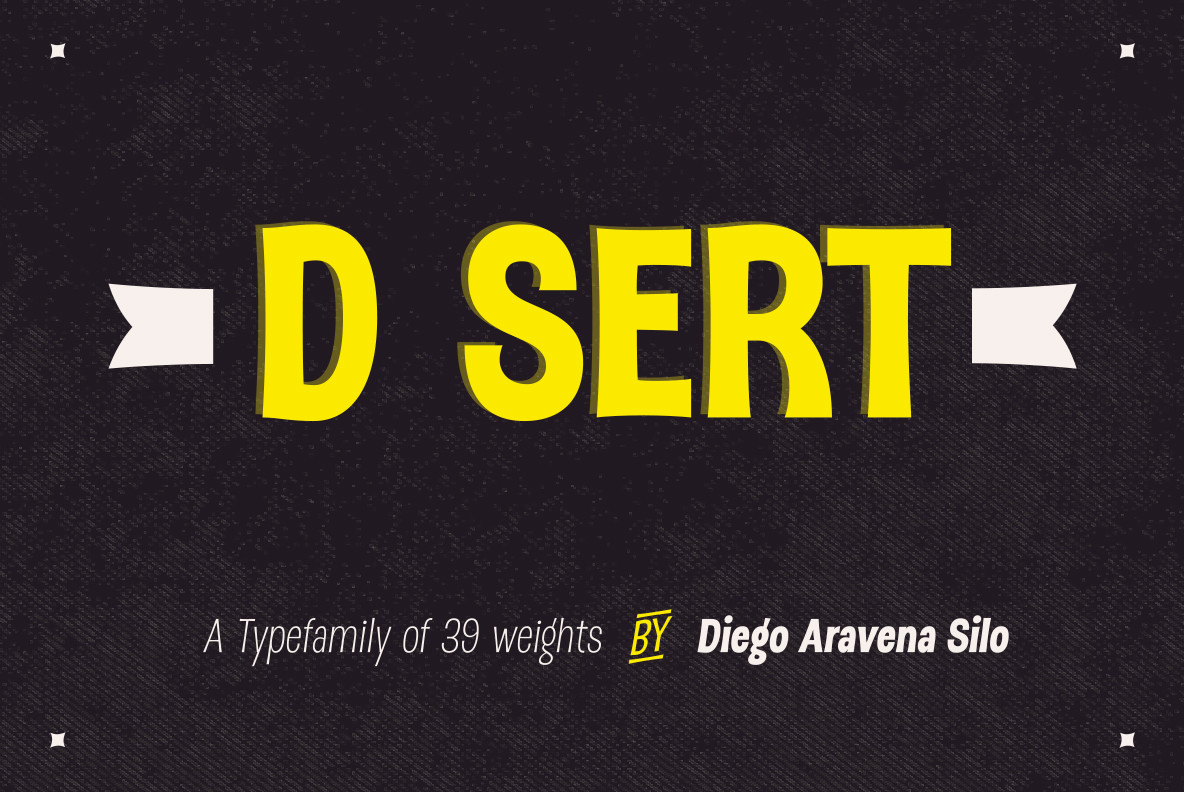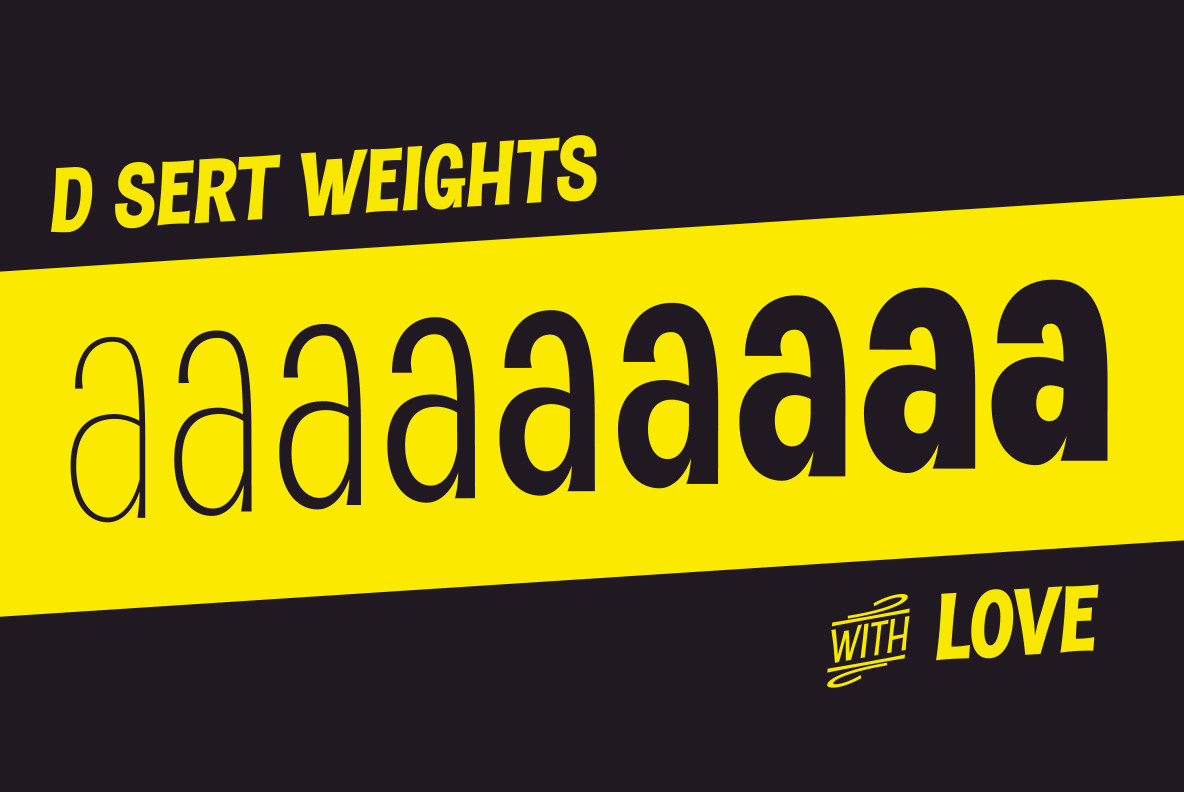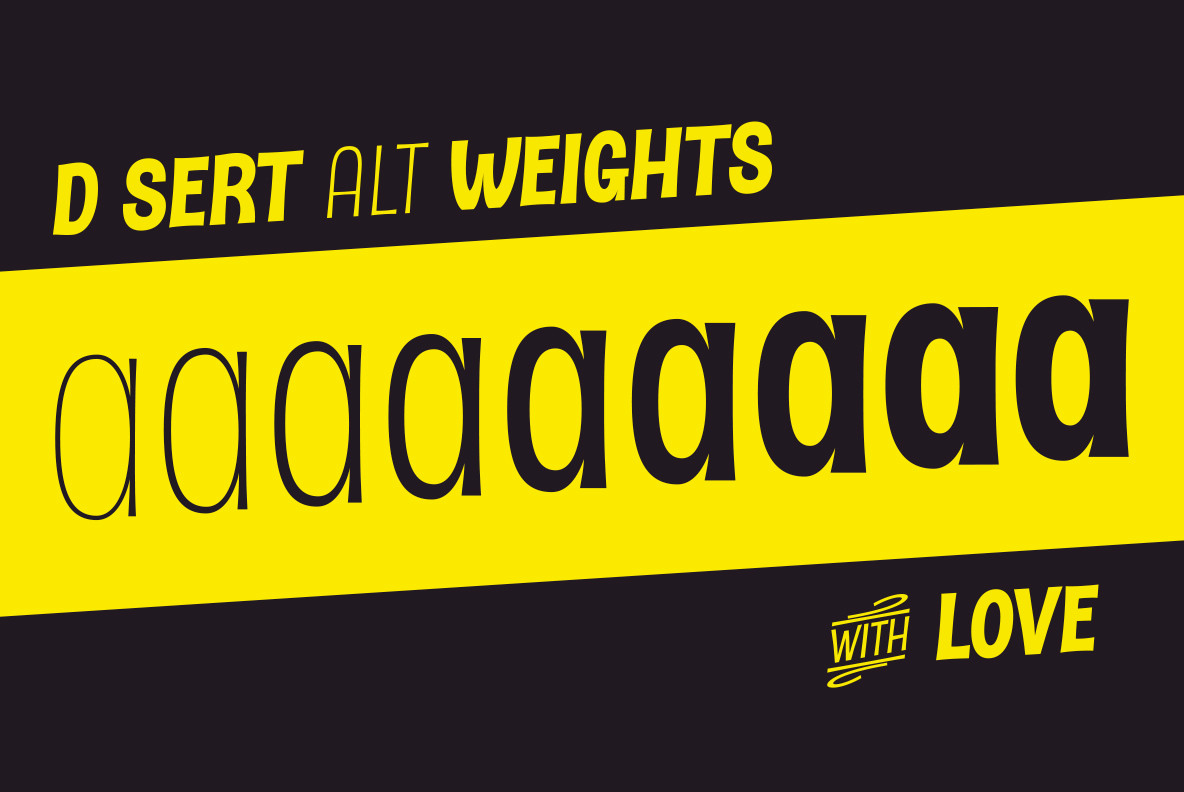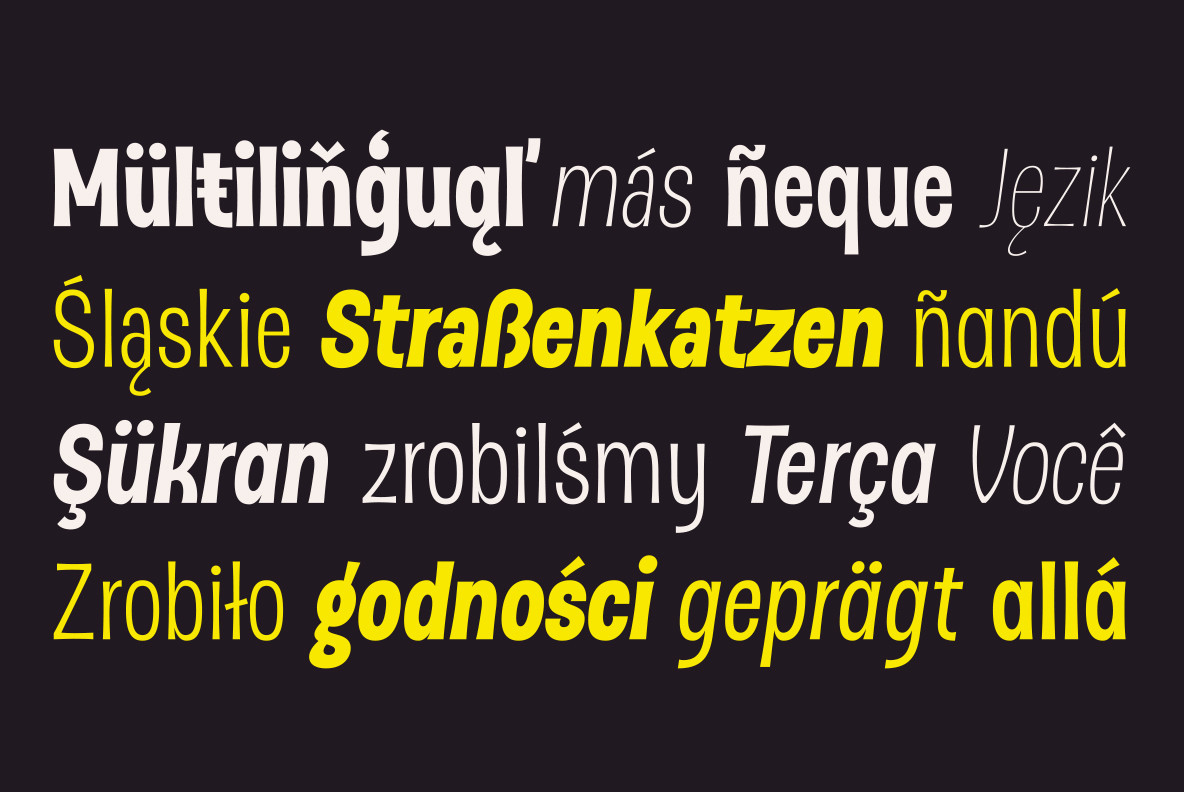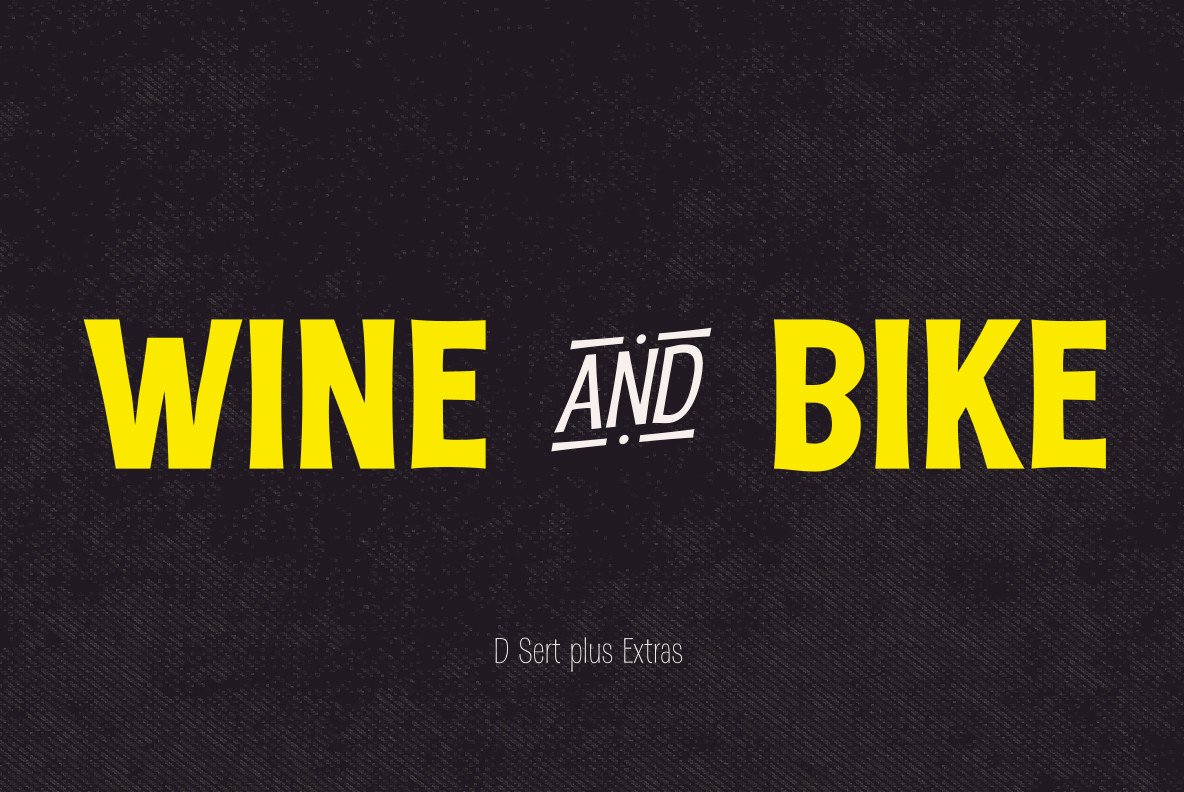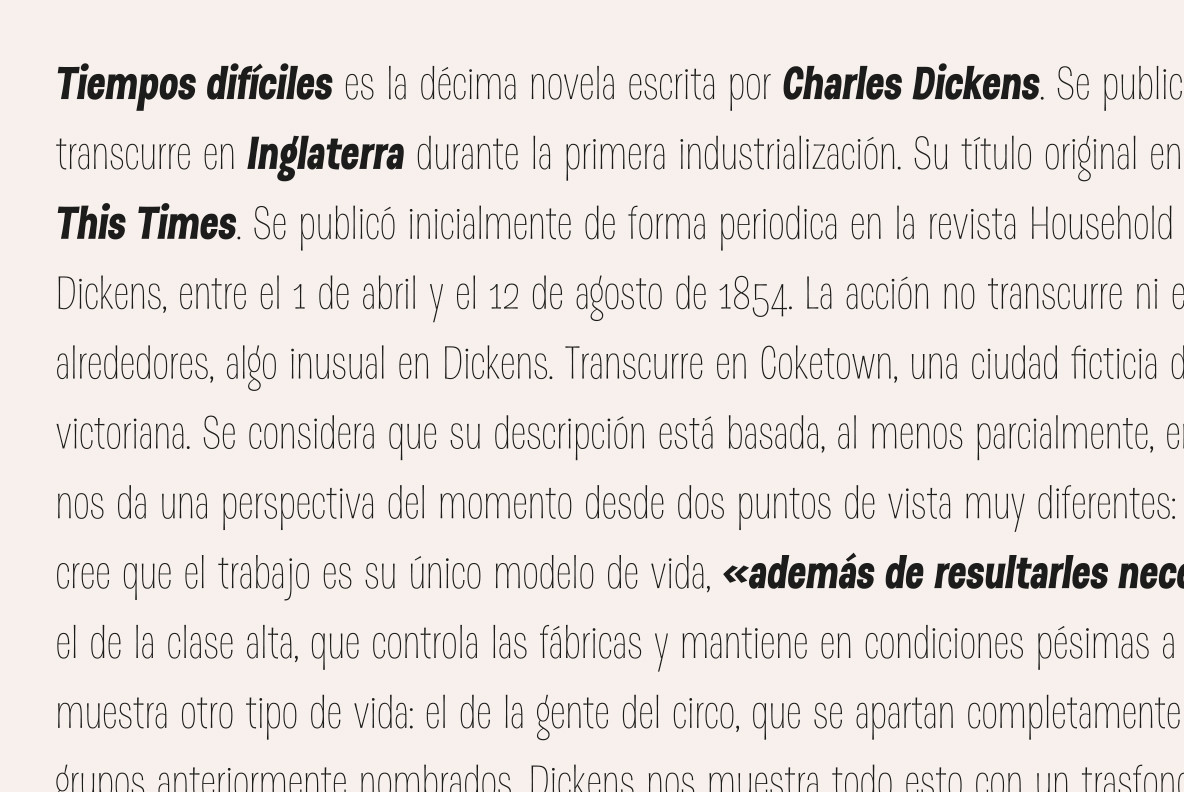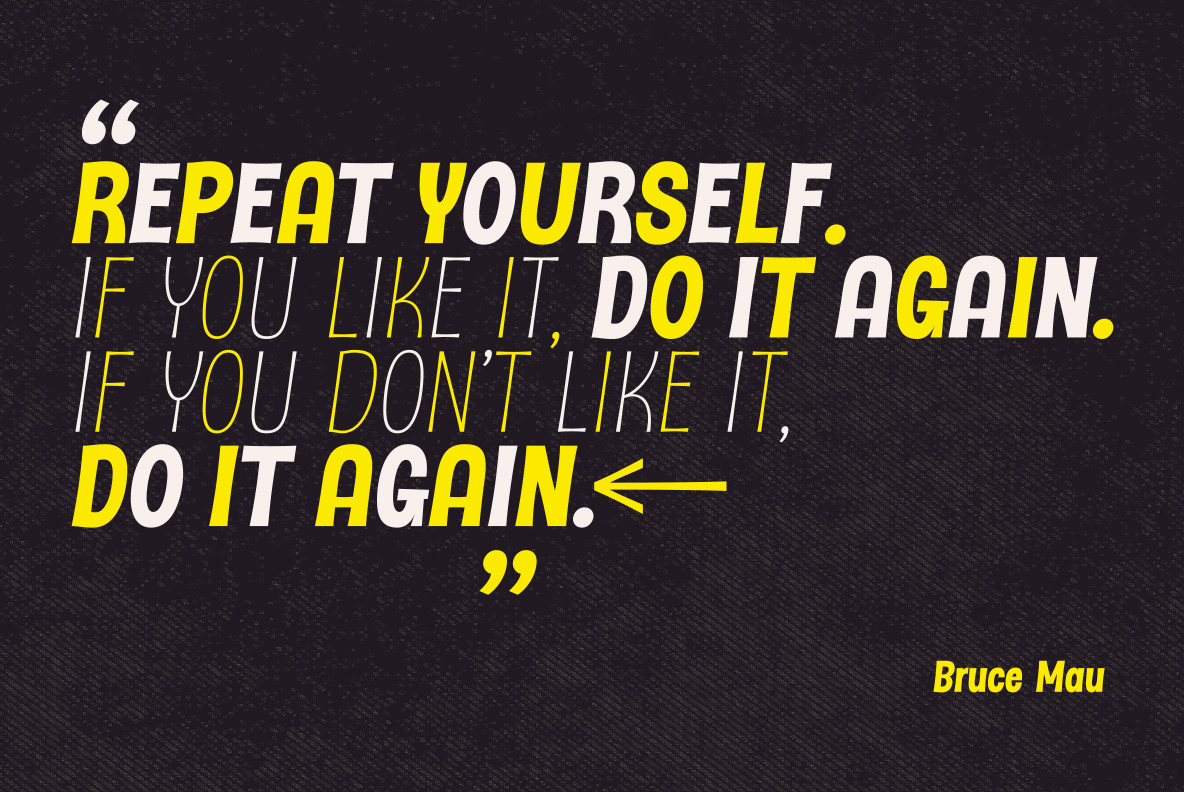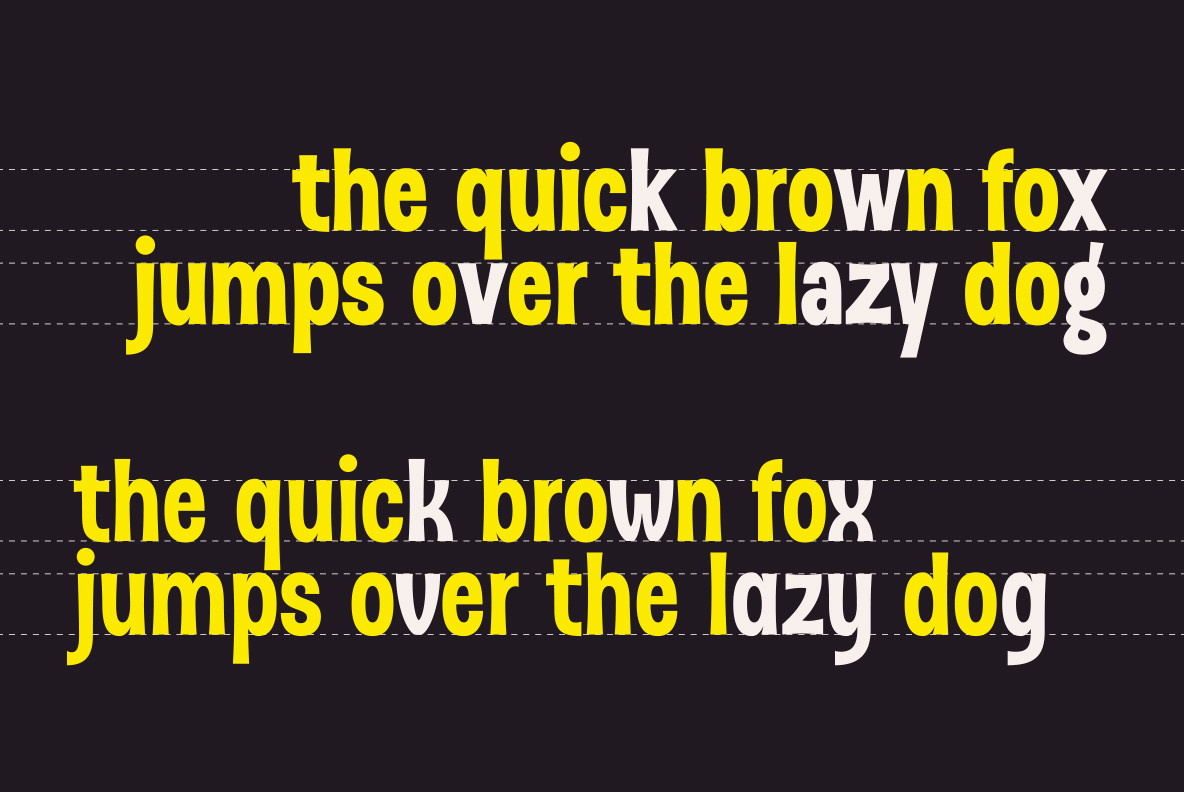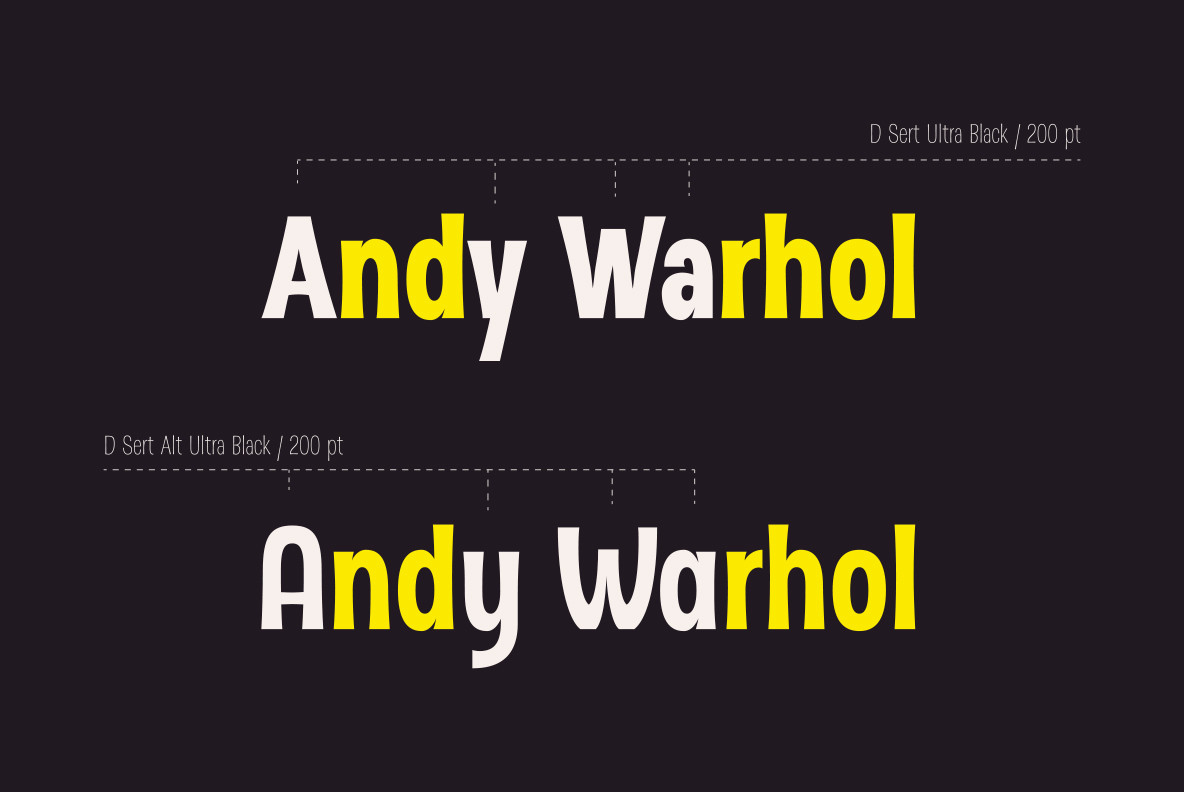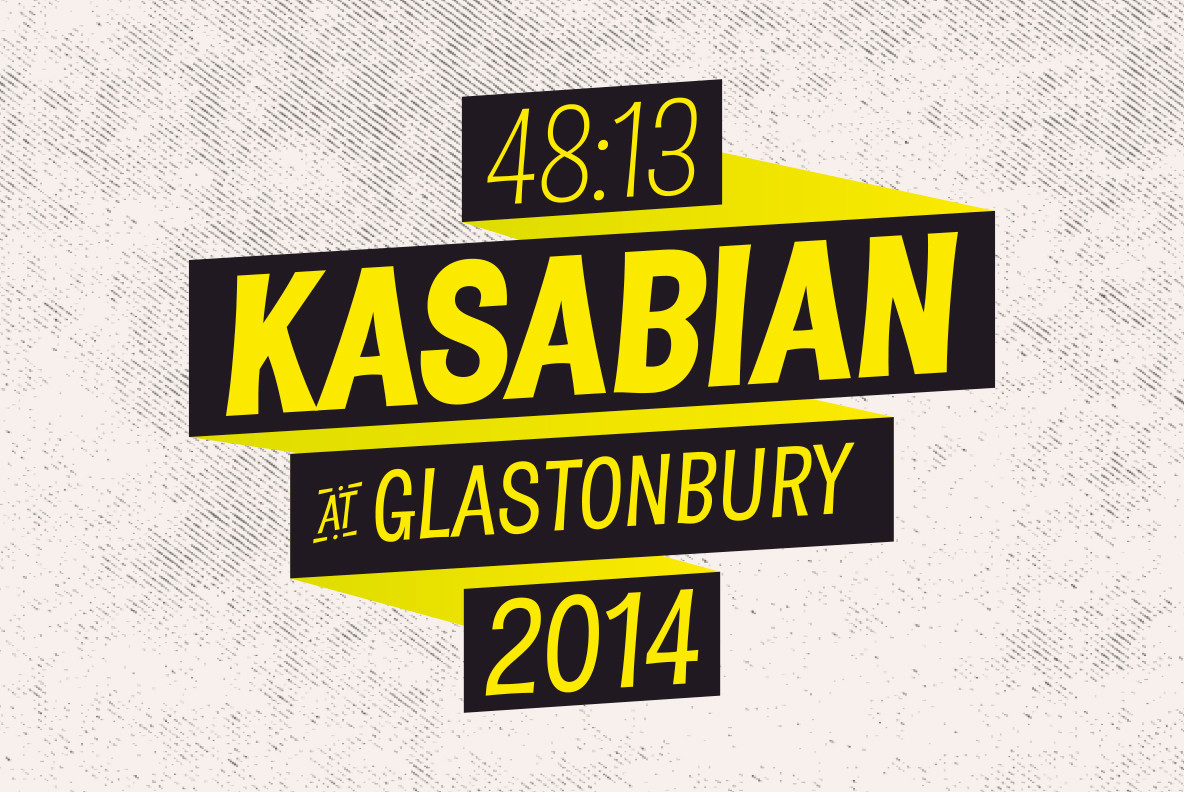
DSert Font
D Sert—based on the Pirata typeface—is inspired by 70s Chilean constructivist design and the political propaganda posters artwork of La Unidad Popular (Chilean political coalition). D Sert is the result of the combination of the Chilean graphic art revival with new trends, such as the handmade movement and super font families.
The super family comprises 47 weights and comes with two versions: D Sert and D Sert Alt, plus extras. Diagonal strokes are significantly different between the two versions: diagonals of the Alt version are much more logical than the diagonals of the normal version.
Another difference is the bowls of the capitals: in the D Sert version, they slightly project above the cap height, making it a more daring version and bringing it closer to calligraphy; contrarily, in the Alt version, bowls do not project above the cap height, which makes it a more tidy font. This way, the combination of the two versions and extras provides the user with the freedom to create any kind of artwork.